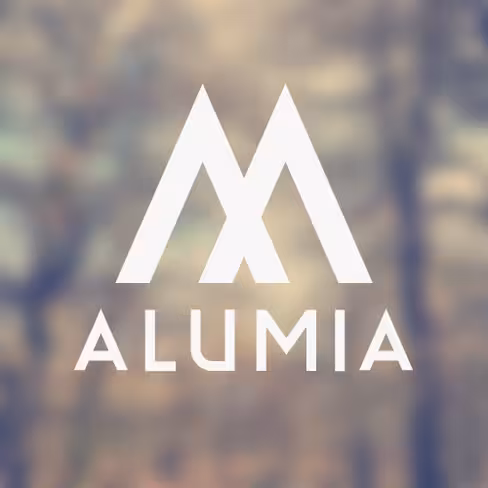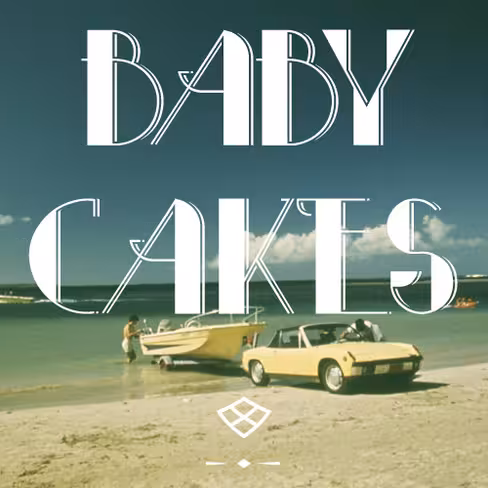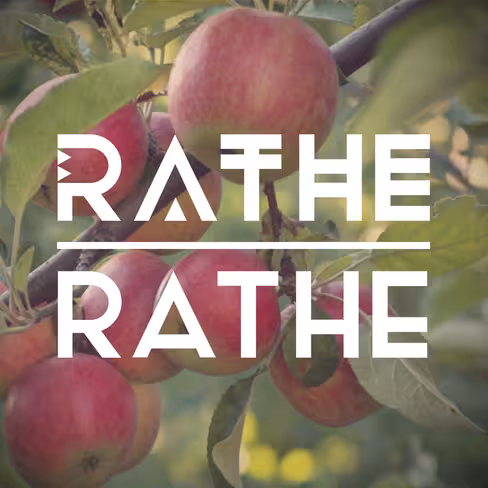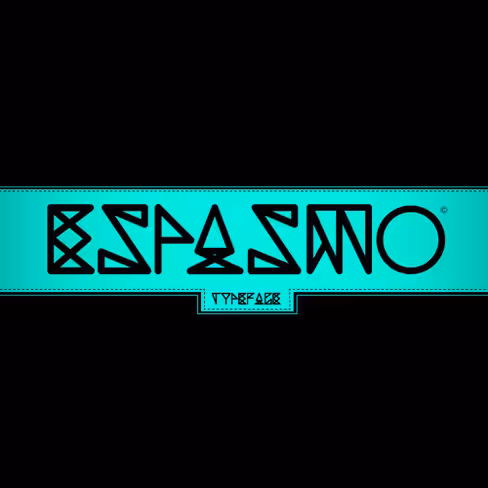
Ten Dollar Fonts brings incredible experimental typefaces to the masses
The art of type design is for a special breed of designer. The insane attention to detail required to create typefaces is enough to drive the average person crazy, but somehow a special few are able to master the subtle curves and rules that go into type.
Fine typefaces can take years to design, and that’s exactly why pros like House Industries charge a hefty price for every font. These higher prices are often well deserved, but can be unapproachable for many designers. This is why the wild, impressive faces coming out of Ten Dollar Fonts are worth a look.
As you might have guessed, each font costs $10 or less. Here’s 5 of our favorites below:
“Alumia typeface was designed for the eponymous design company, Alumia. It’s great for using in logo design since the type is clean and its form is simple but strong.”
“RATHE Deluxe comes with a standard and alternative alphabet. Beautiful simple forms create a very flexible typeface for your next project. It feels very fresh. It’s simple yet adds a sound whole feeling to any design work.”
“Baby Cakes is a display font that plays between thick and thin. With three weights and a full set of glyphs, this font has versatile appeal. It’s elegant while remaining approachable. It’s nostalgic with a modern style. Baby Cakes is about having fun and looking good doing it.”
“Espasmo is a new typeface, that was designed to be a good tool for any designer. Is an experimental font and it fits well on any kind of design.”